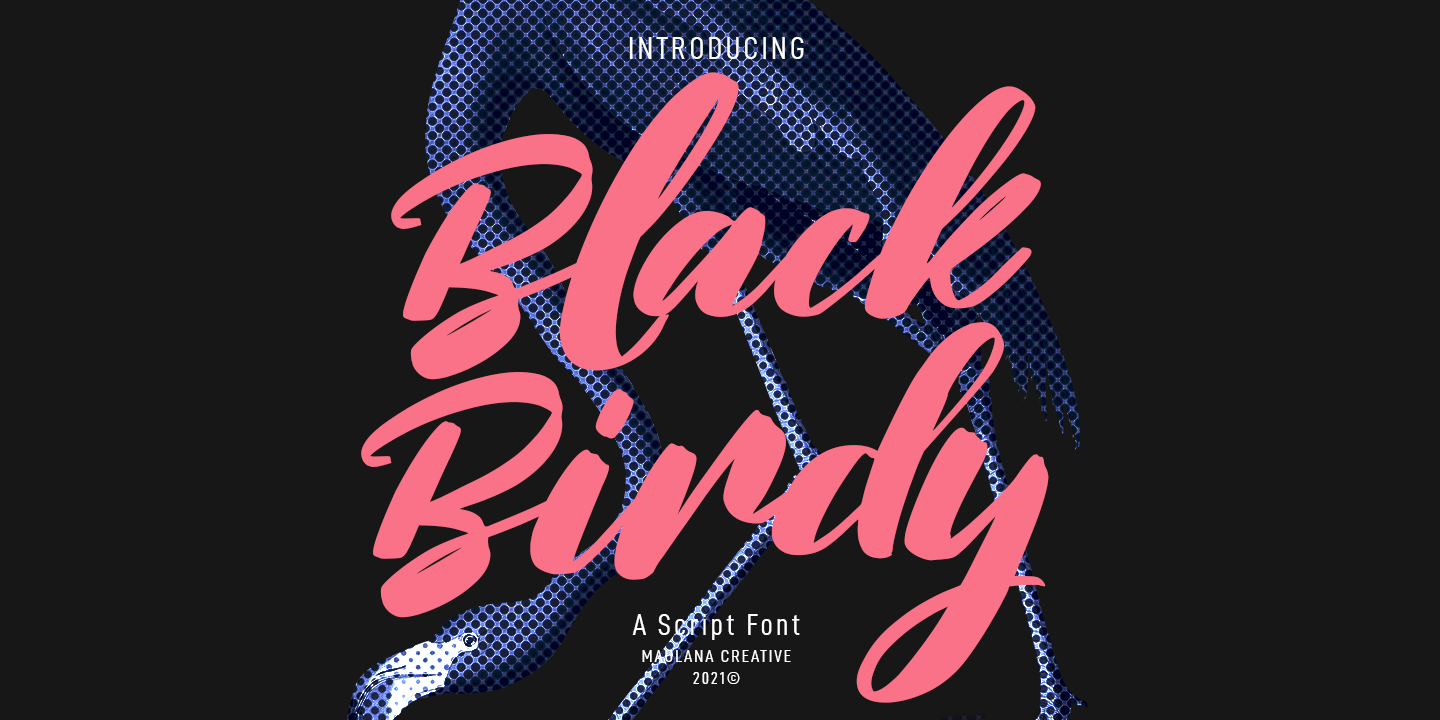
This elegant script font is perfect for nature conservation branding, bird watching guides, wildlife photography portfolios, ornithology publications, eco-friendly product packaging, outdoor adventure campaigns, environmental awareness materials, and organic design projects that celebrate avian beauty and natural freedom.
Blackbirdy Font is exciting because it captures the graceful flight of birds with its soaring letterforms that seem to dance through the sky like feathered poetry in motion. The font embodies natural elegance and the timeless freedom of wildlife.
The Blackbirdy Font family includes regular and bold versions with bird-inspired decorative elements, feather ornaments, and nature symbols, providing designers with comprehensive tools for creating flight-worthy typography that soars above ordinary design.
Ready to take flight with elegant design? Blackbirdy Font Free Download offers designers graceful letterforms that soar with natural beauty and avian inspiration. This enchanting typeface combines wildlife aesthetics with professional functionality, making it ideal for nature organizations, eco-brands, and outdoor lifestyle companies. Whether you're designing bird watching guides, environmental campaigns, or nature photography portfolios, this font delivers captivating appeal. The gracefully crafted characters feature flowing curves while maintaining excellent readability across natural applications. Perfect for businesses in wildlife conservation, outdoor recreation, environmental education, and eco-tourism that celebrate nature's majesty and environmental stewardship. The font's avian construction creates memorable brand recognition that resonates with nature lovers worldwide. Each letter showcases deliberate grace that mirrors the elegant flight patterns of wild birds. Download today and elevate your creative projects with this premium script font that transforms ordinary text into extraordinary expressions of natural beauty and the soaring freedom of Blackbirdy Font Free Download wildlife.